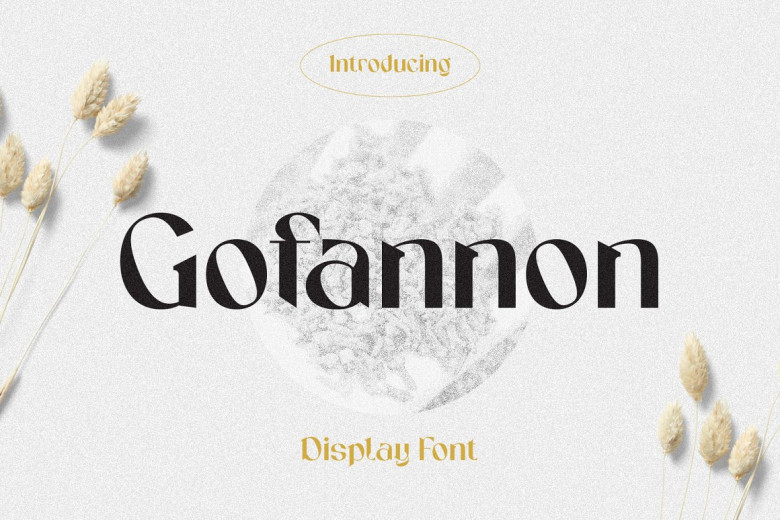
Gofannon Font
Gofannon – a display font look with simple, clean and visual elegance with smooth curves and beautiful ligatures. A very versatile font that works in both large and small sizes. This font is suitable for a wide variety of projects such as headlines, logos, labels, branding projects, magazines, homeware designs, product packaging, mugs, quotes, posters, and more.
Gofannon Display Font